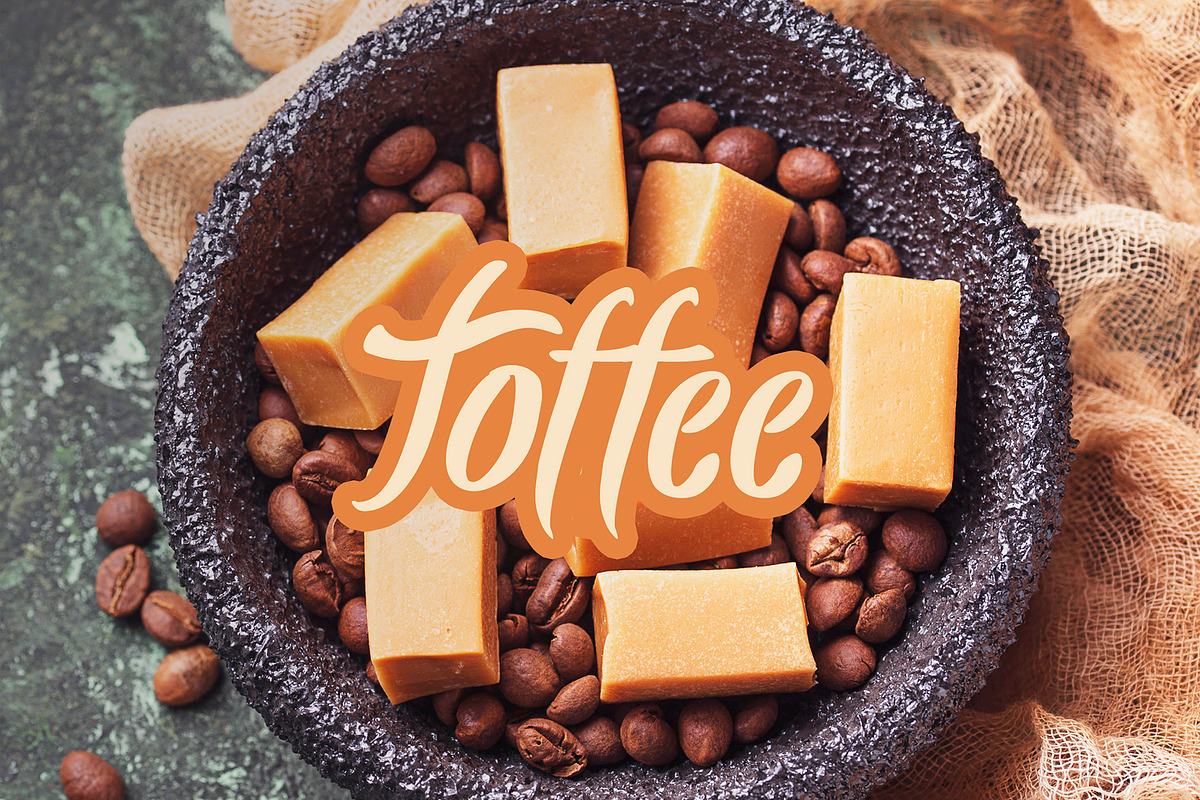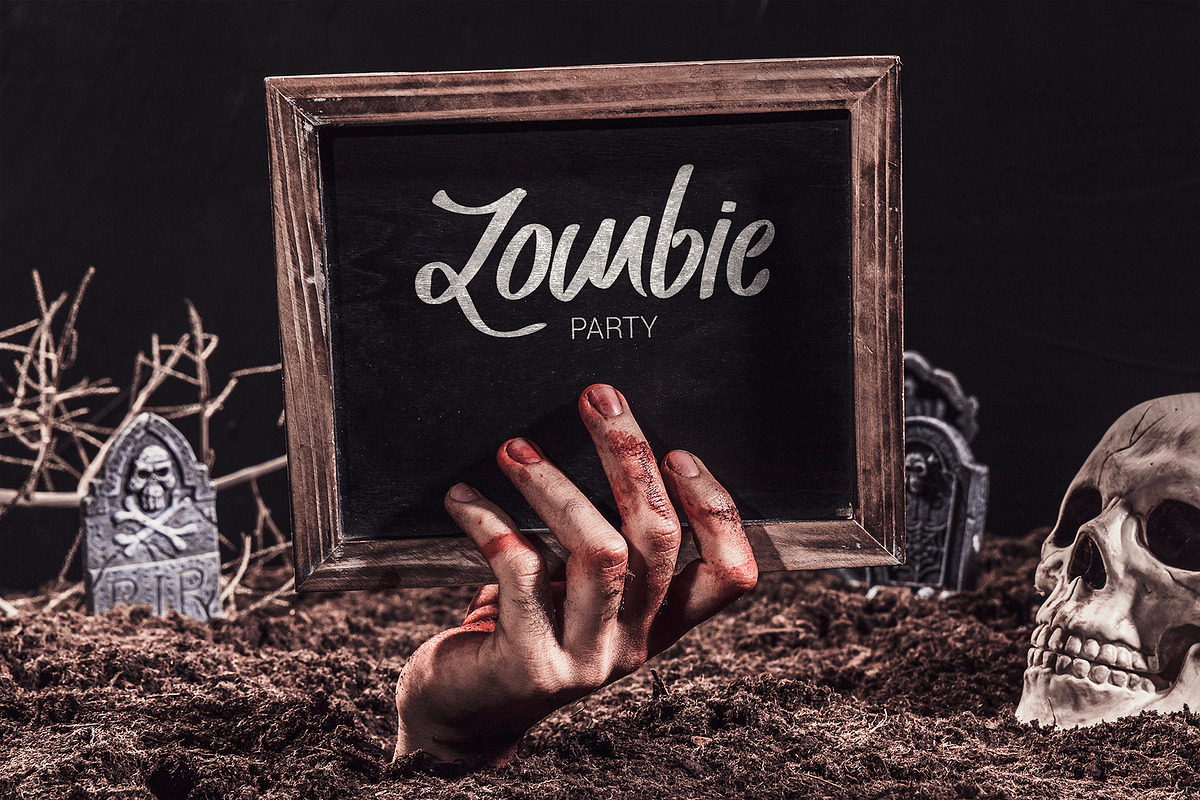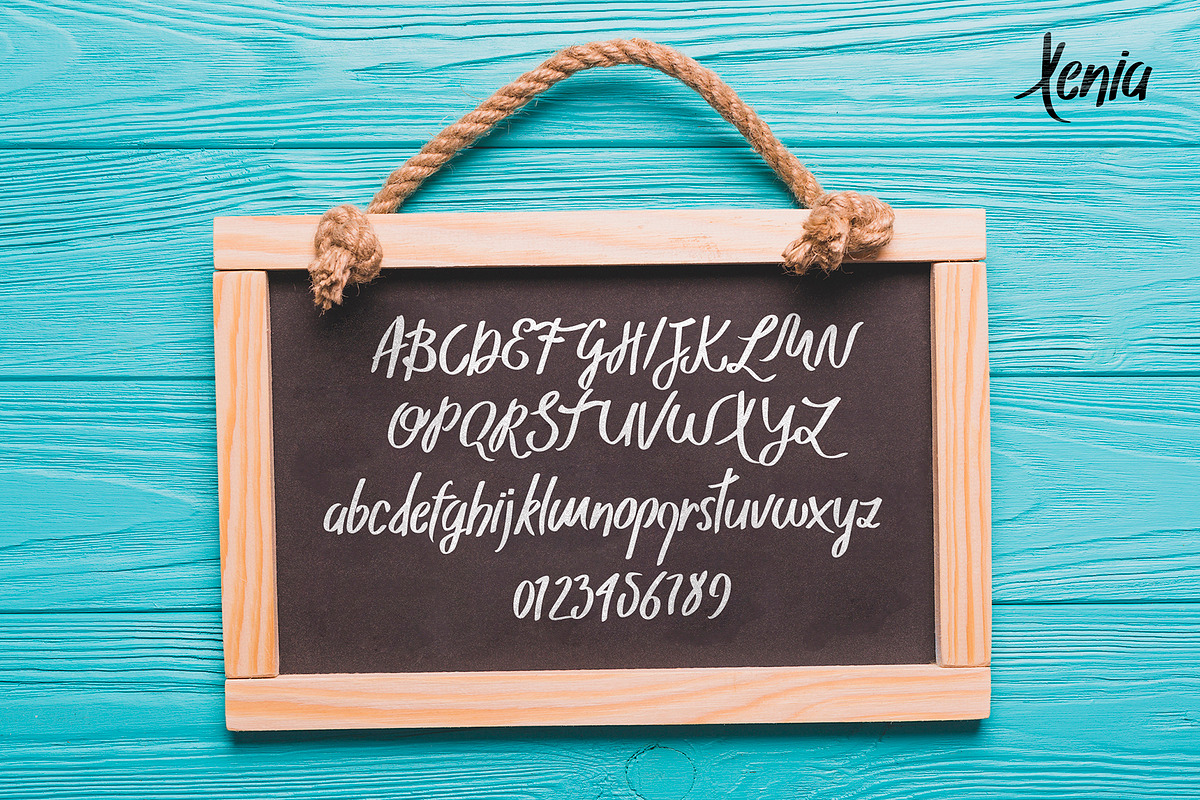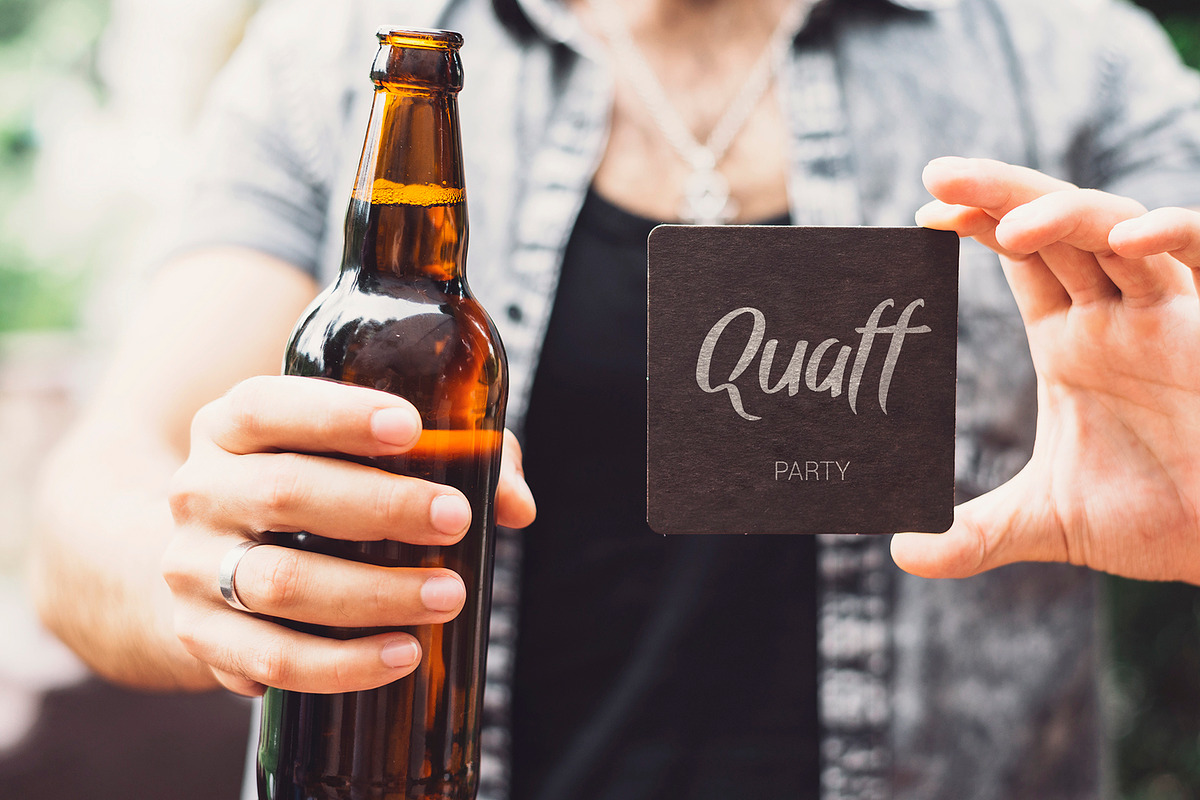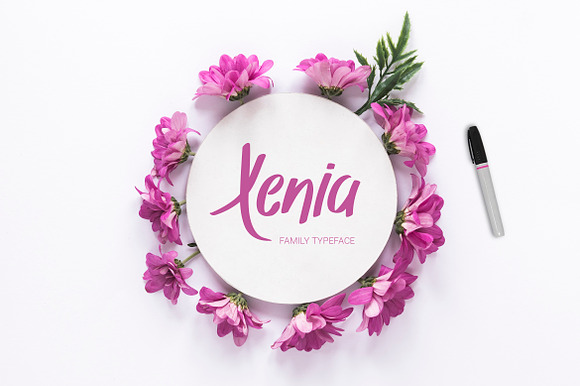
Xenia Family Typeface
Xenia family is a handmade brush font. Perfect to give a unique appearance to your designs. All punctuations, extensions, lowercase and uppercase, numbers and webfont.
Xenia Family Typeface by SmartDesigns fits naturally into Branding, posters, packaging, typography.